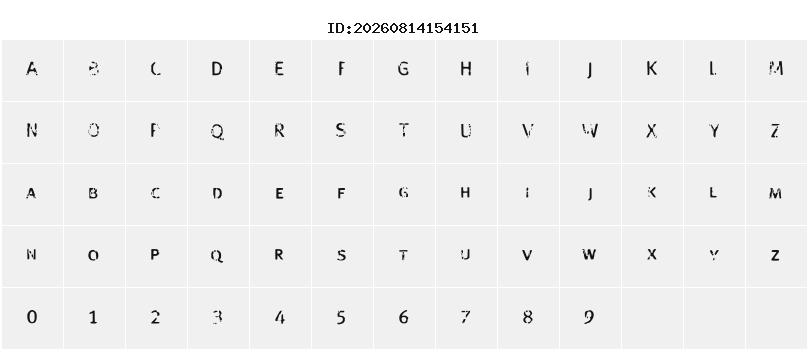
StrangeBoy Preview
• Font Name: StrangeBoy
• Full Font Name: StrangeBoy
About StrangeBoy.ttf
StrangeBoy.ttf is a modern, elegant sans-serif font designed for ultimate readability and visual harmony. Perfect for branding, headlines, web design, and print materials.